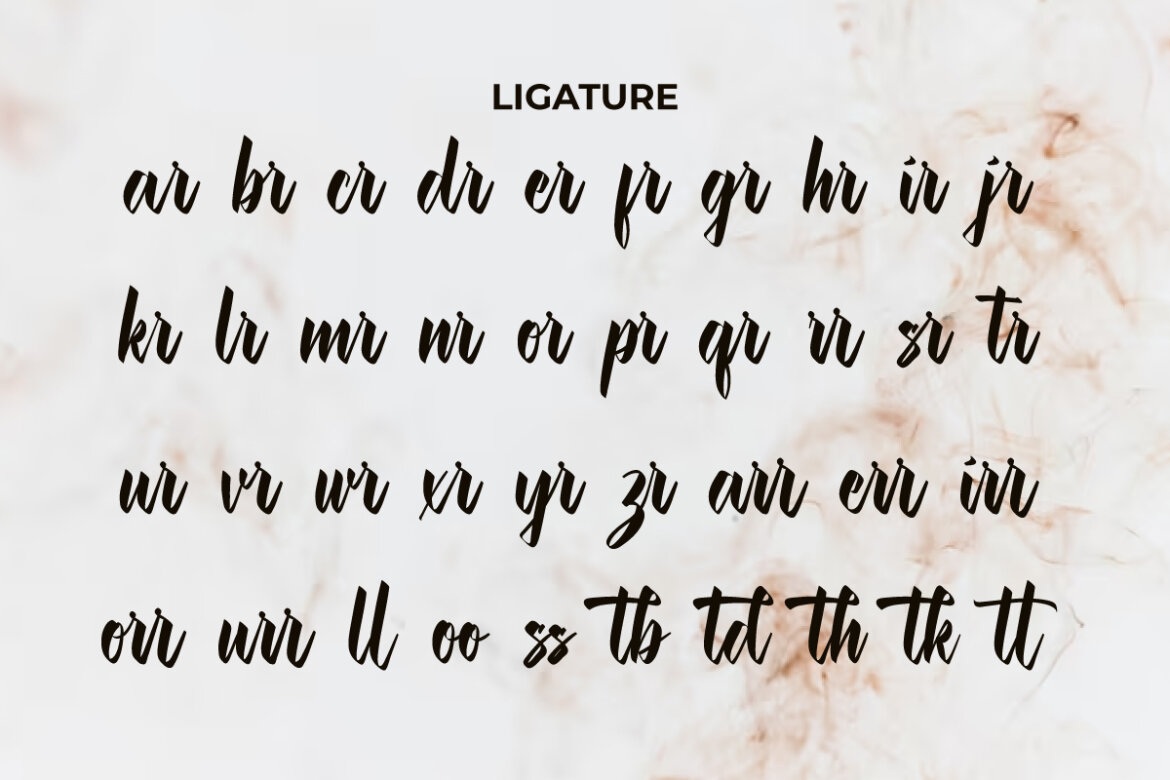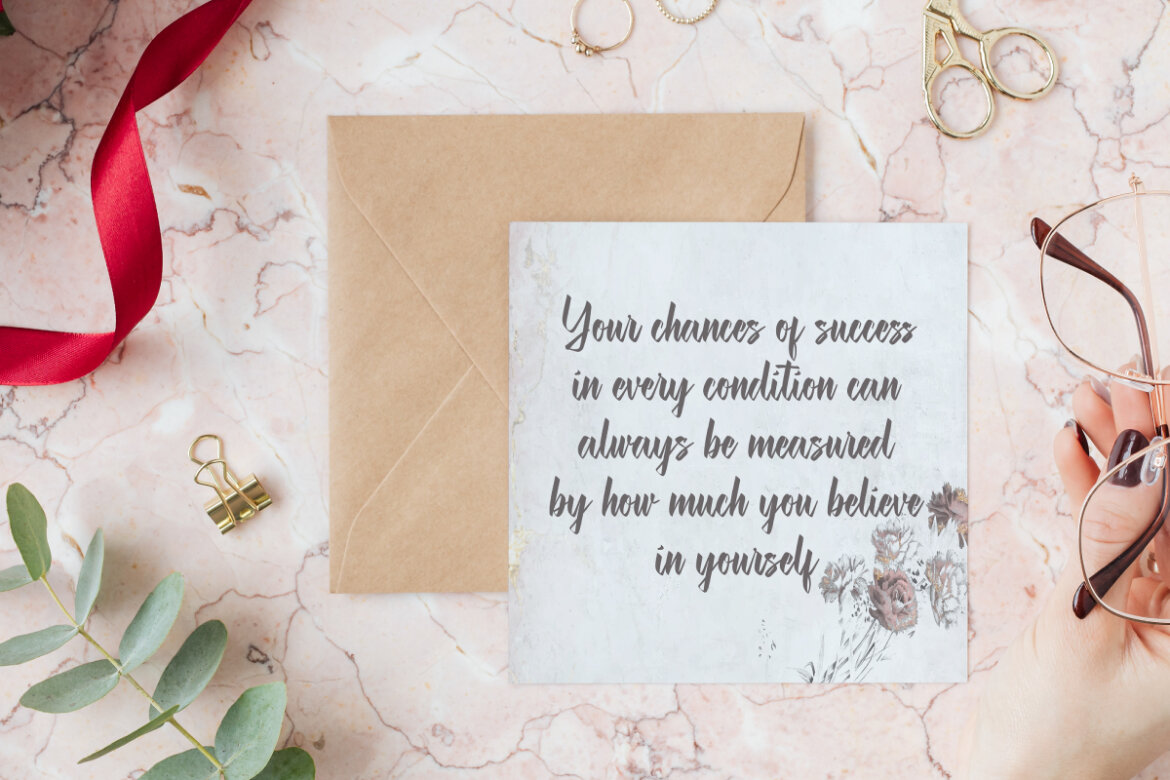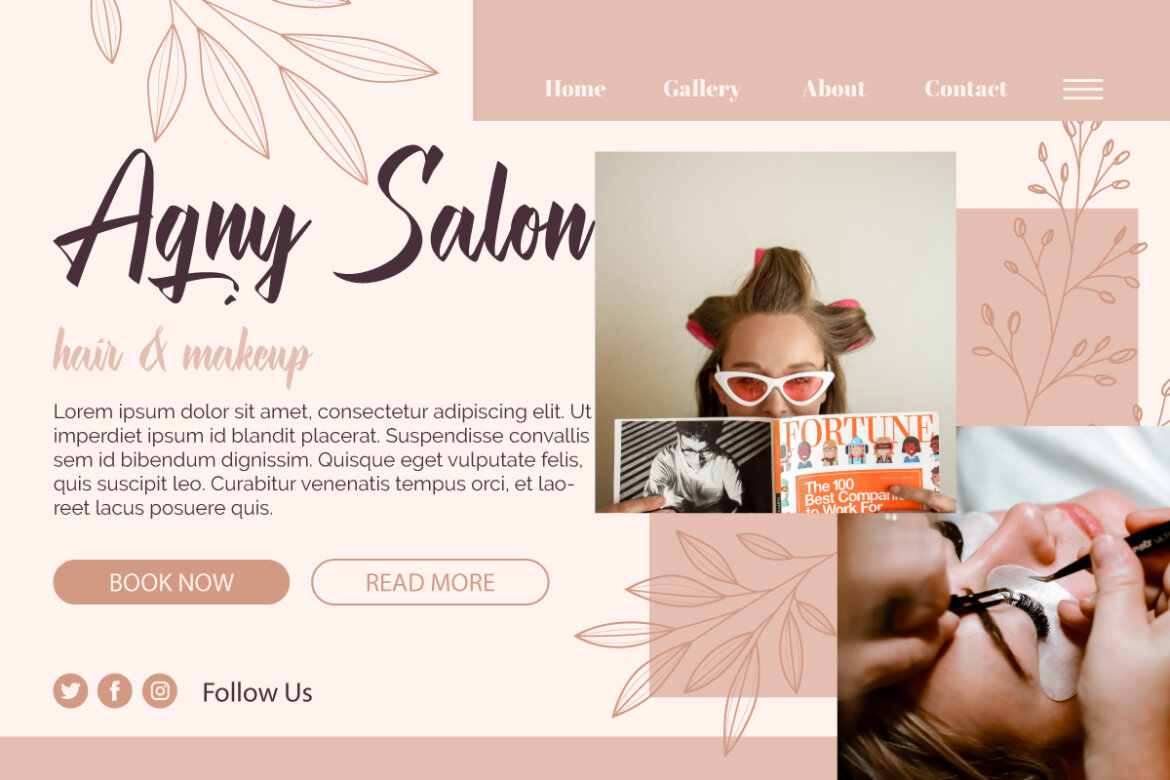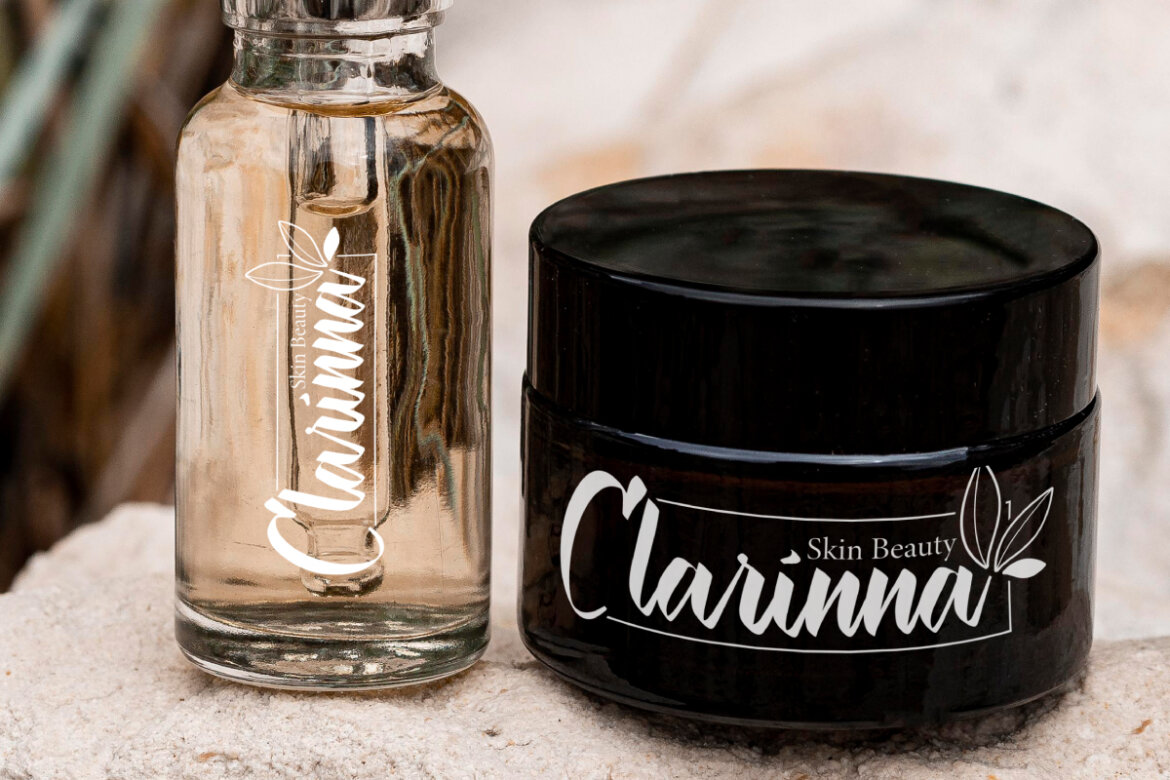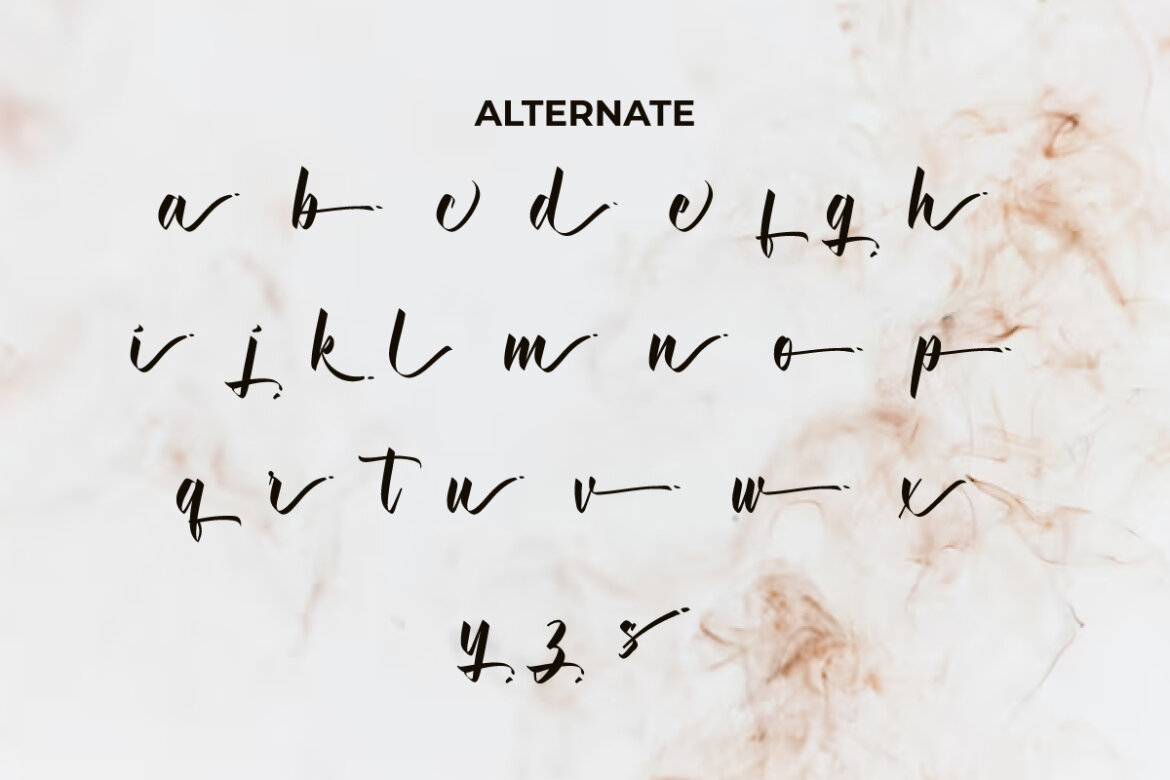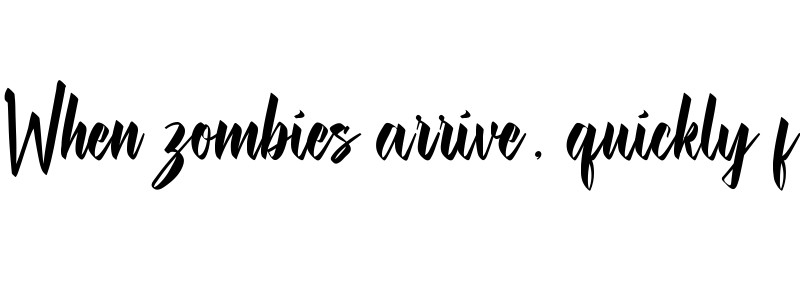
Blethers
Blethers Font is a feminine script font with the charm of the calligraphy style. The font has beautiful elegant characters with bold and stylish contrasting strokes. Addition of ligature characters and alternative styles to increase the artistic value of the font. The character of the letters imitates the beauty of human writing because it is handmade and can perfect your design needs so that it feels a personal touch, whether in terms of creating book titles, invitation cards, label, logo designs, product packaging, short text or even long text and perfect for combining fonts with sans or serif, social media, stationery design, sticker, website, and other things.
Blethers Font is a versatile typeface with a modern aesthetic, it allows you to explore limitless creativity. This font is great for your next business, such as accessories and merchandise, bakery, beauty clinic, cosmetic, fashion, florist, furniture, graphic design, homeware design, hotel, jewelry, makeup artist, restaurant, perfume, photography, printing, publishing, skincare, spa salon, wedding organizer, writer, and anything that requires a beautiful and calm font display.
Blethers Font comes with a complete set of Uppercase and Lowercase Basic Characters, Number, a large range of Punctuation, Symbol and some additional Ligature & Alternate characters. It is supported with multilingual characters and ready to use both on Windows machine or Mac with simple installations. It’s tested to work well in the Adobe Apps (Illustrator, Adobe InDesign, Adobe Photoshop) CorelDraw, and others. PUA Encode Characters means you can access all the characters easily – Fully accessible without additional design software.